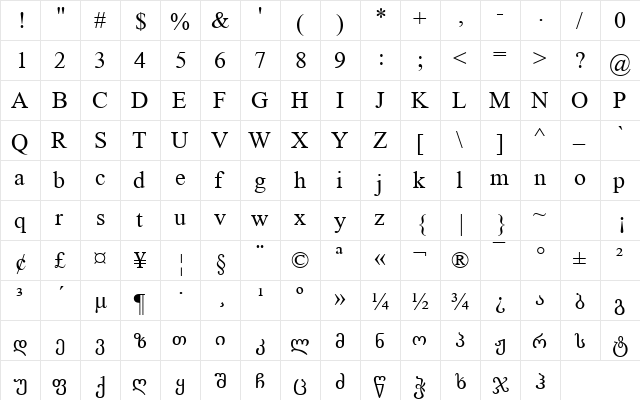
Geo_Literaturuli Regular Font Preview
Geo_Literaturuli Regular
Geo_Literaturuli Regular Font Details
Design Context for Geo_Literaturuli Typeface
Geo_Literaturuli takes a measured approach to typography — its balanced proportions and neutral character make it a reliable workhorse for both digital and print work.